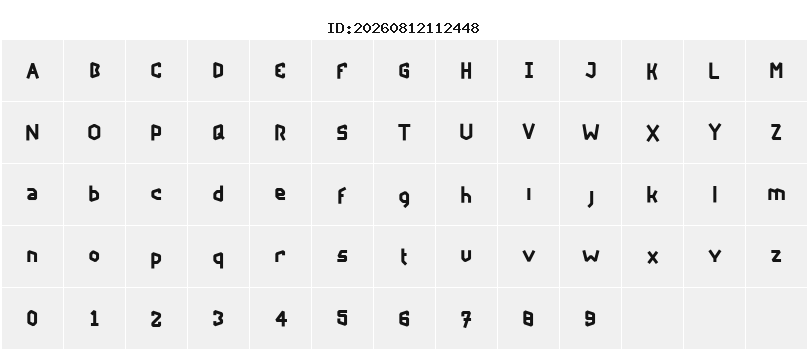
• Font Name: Rockfire
• Designer: Jay Cobs
About Rockfire.otf
Rockfire.otf is a modern, elegant sans-serif font designed for ultimate readability and visual harmony. Perfect for branding, headlines, web design, and print materials.